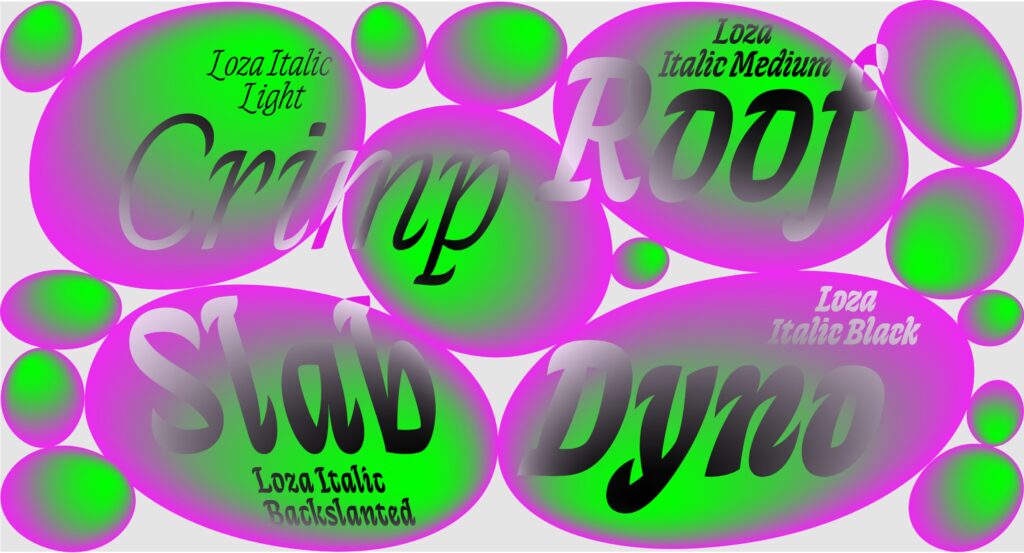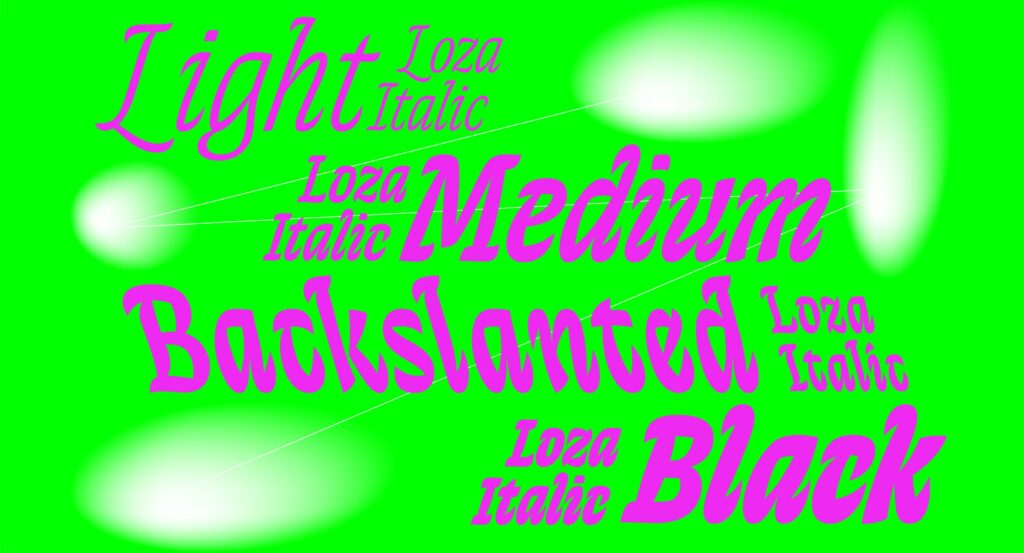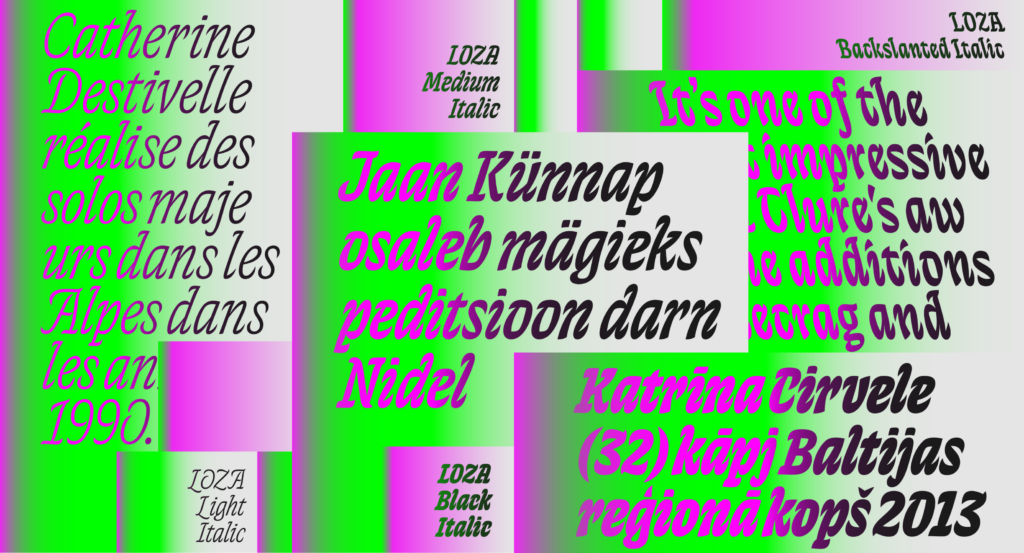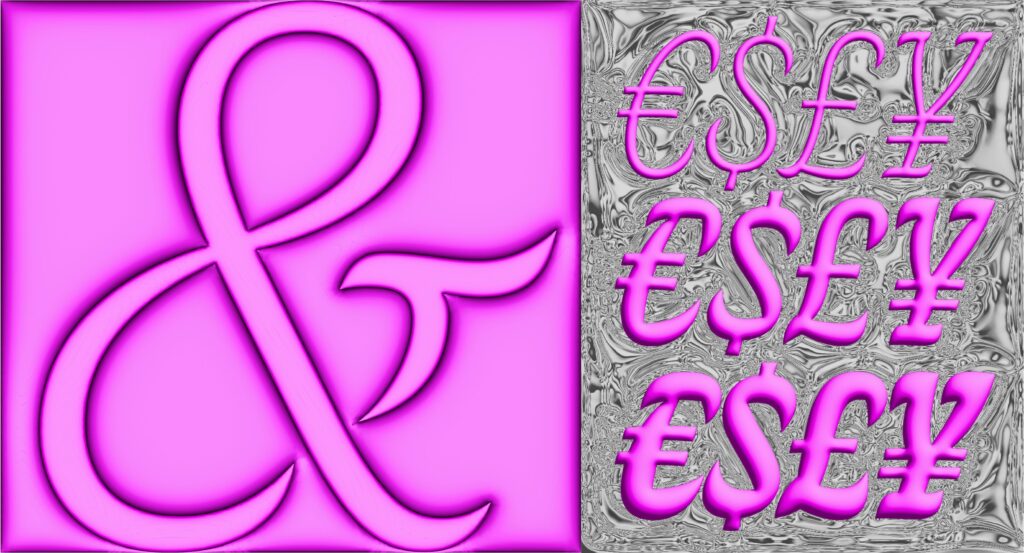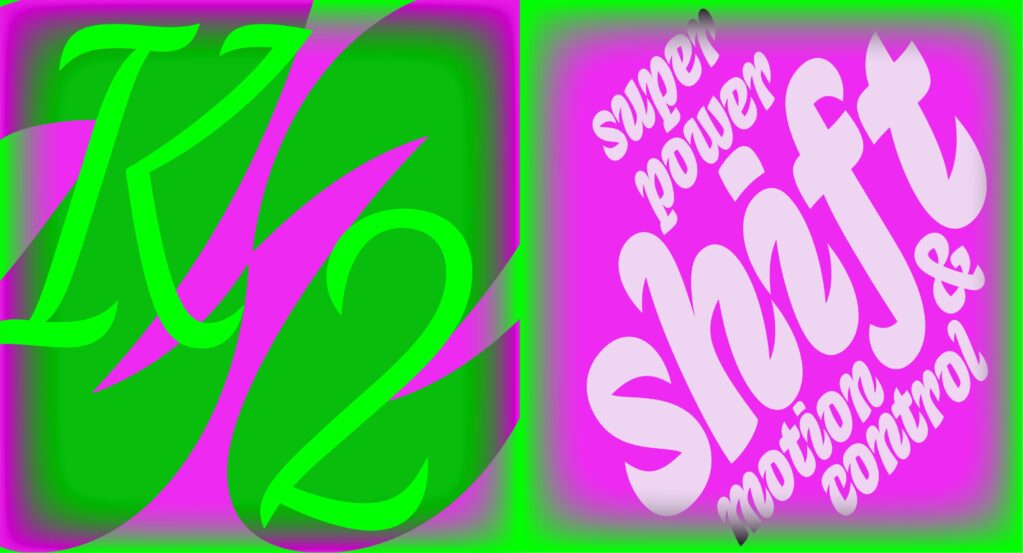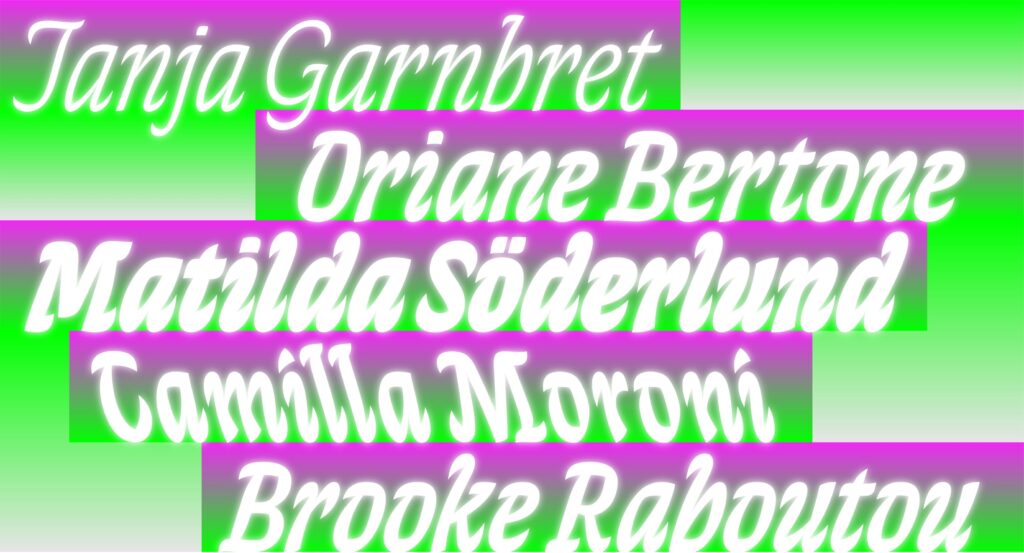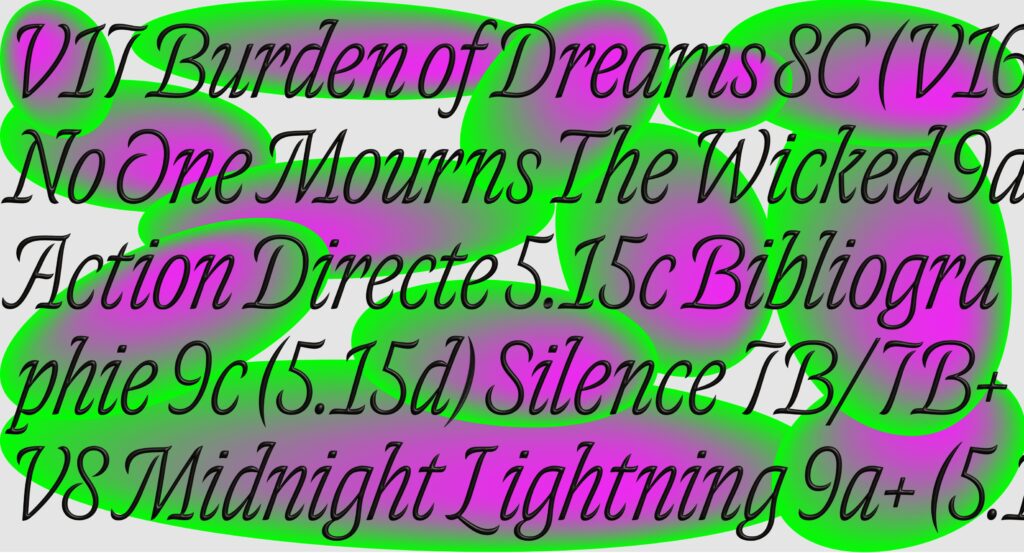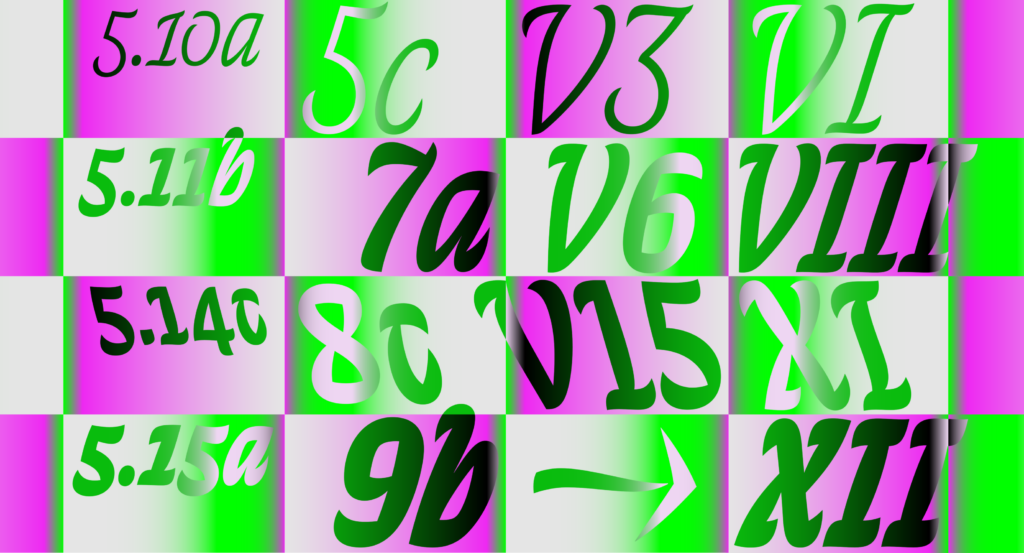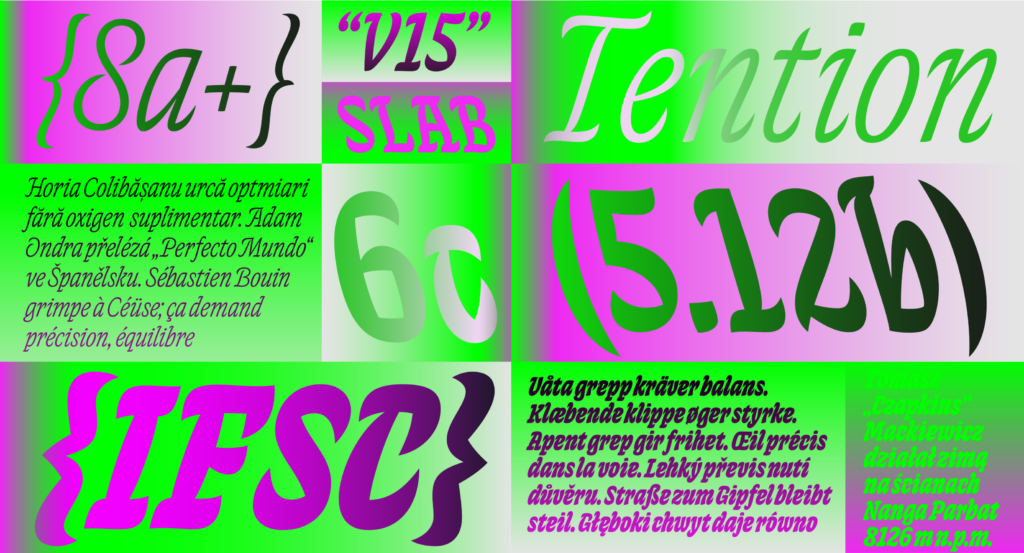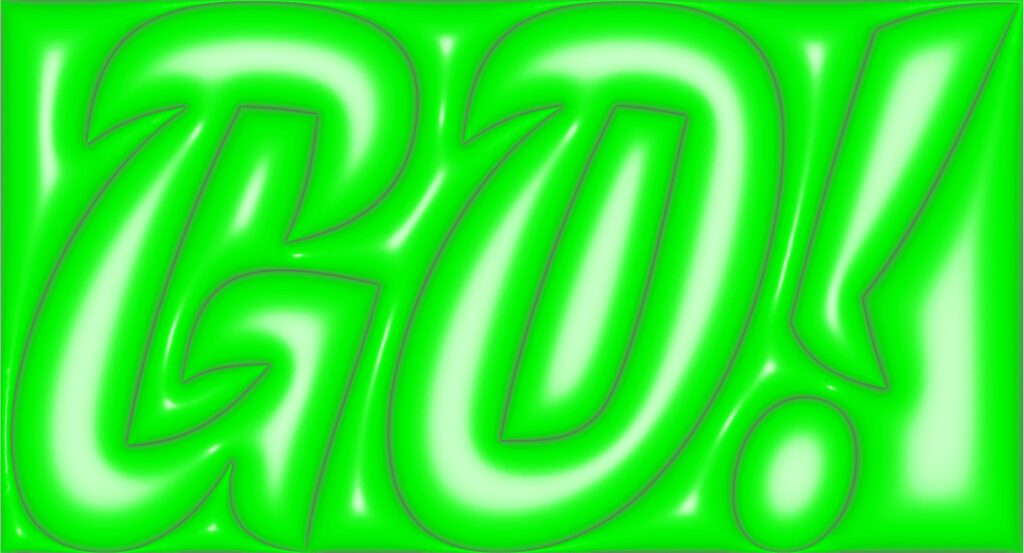
Loza
Design: Anna Khorash
Loza is a family of italics. Distinguished by the mixture of historical influences and calligraphic flavour it creates an energetic texture on the text block. Initially, the family started as an exploration of different aspects of cursive construction, the role of italic in text and the relationship between italic and roman.
Expression
Dynamic twist
Plant plasticity
Unforgettable
Interlacement
Playful but elegant
Calligraphic touch
Tagliente would be happy
The Art of Excellent Writing